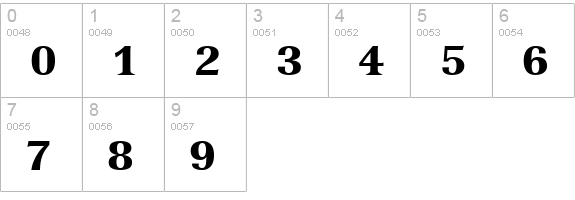
Nuance Black SSi Black is a maximum-weight, dramatic variant in the Nuance typeface family \xE2\x80\x94 well suited to maximum-impact headlines, posters, and packaging.
The Nuance Black SSi Black font is a sleek and modern typeface that exudes sophistication and elegance. Its bold strokes and sharp angles make it perfect for making a statement in design projects. The font's clean lines and distinctive style set it apart from the rest, making it a versatile choice for a wide range of applications. Best of all, the Nuance Black SSi Black font is available for free download at FontsMarket.com. This means that you can easily add this stunning font to your collection without any cost. Whether you're working on a professional project or simply looking to enhance your personal designs, the Nuance Black SSi Black font is sure to impress with its striking appearance and unique flair. Download it today and elevate your designs to the next level!